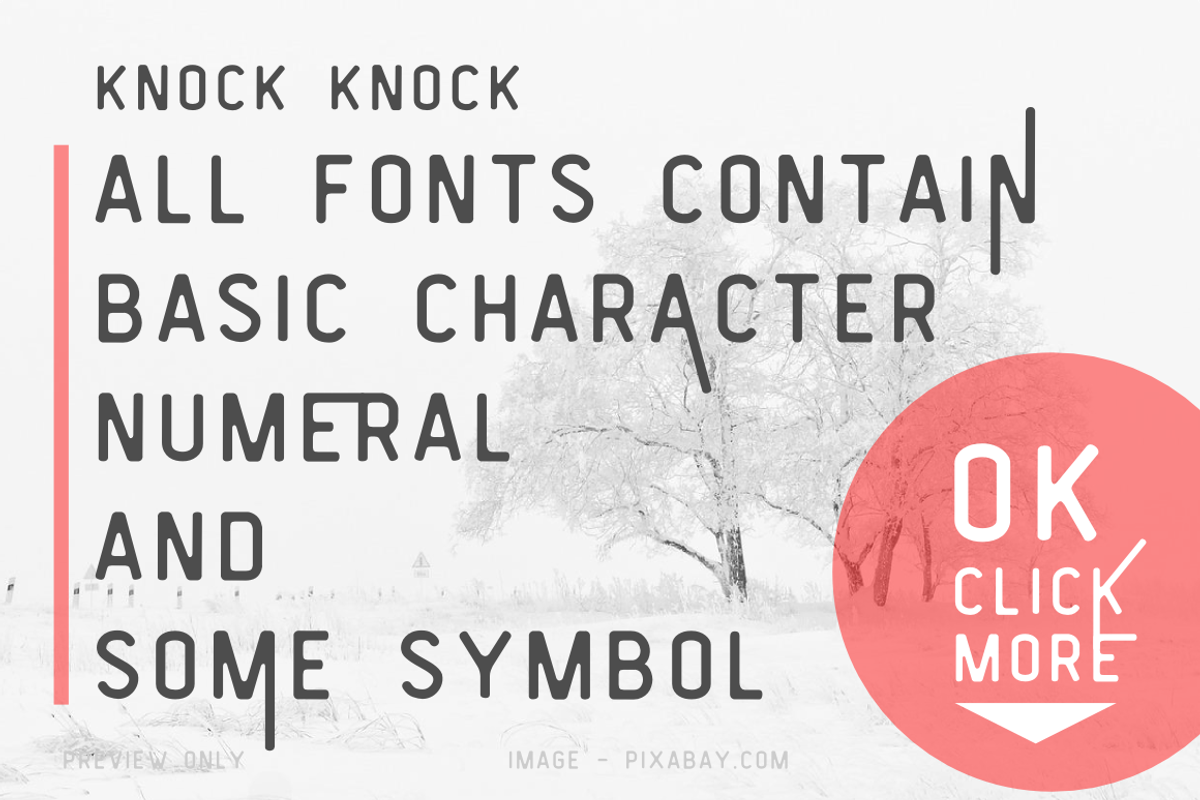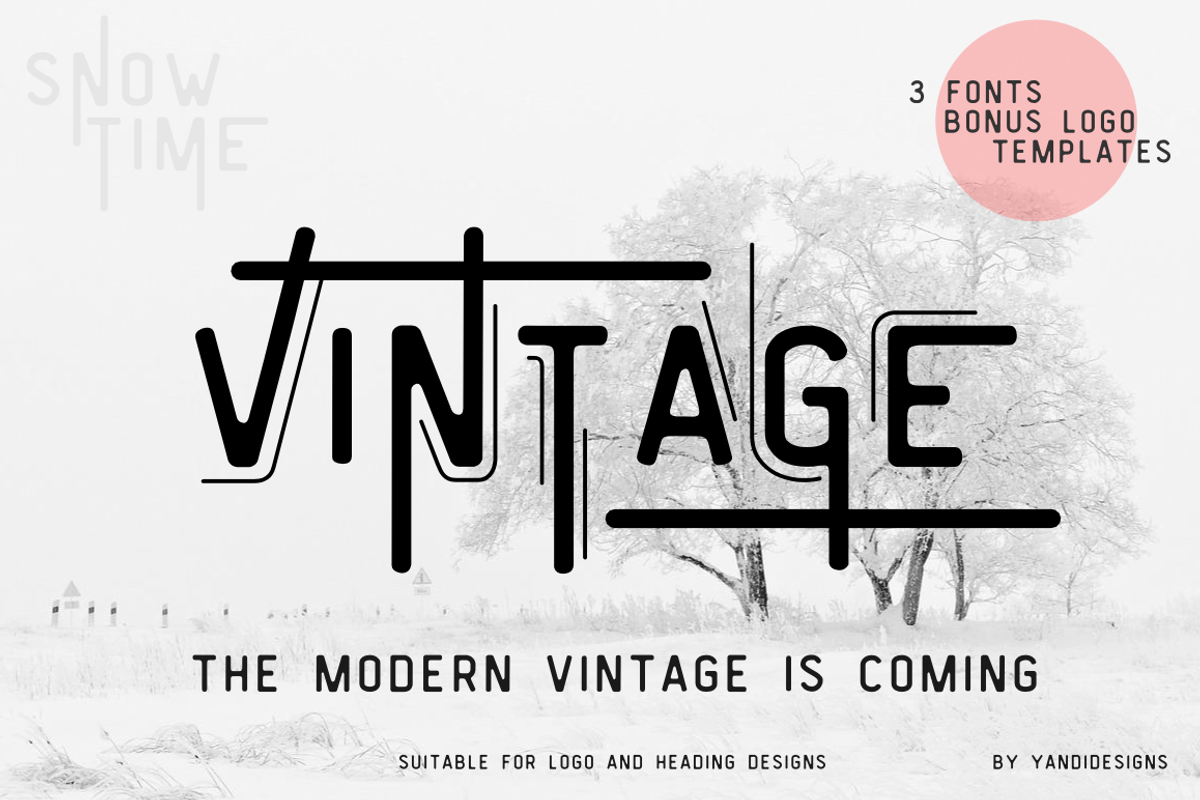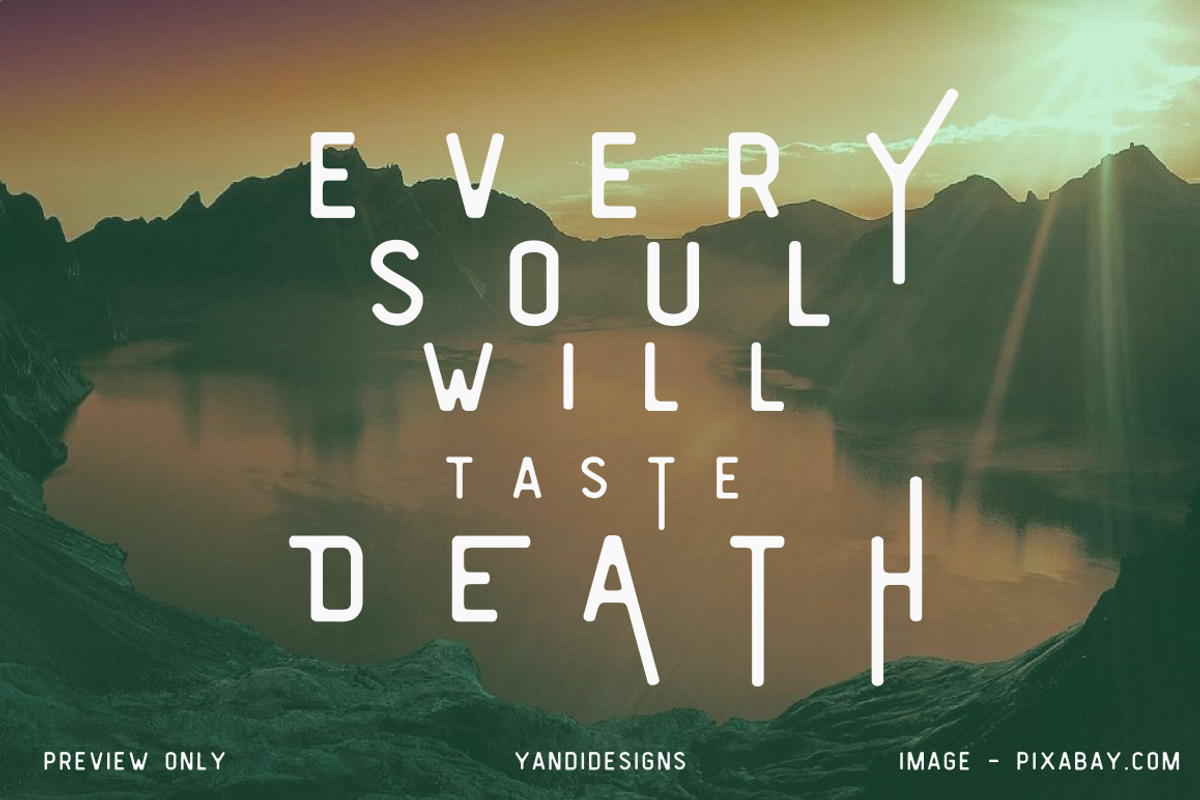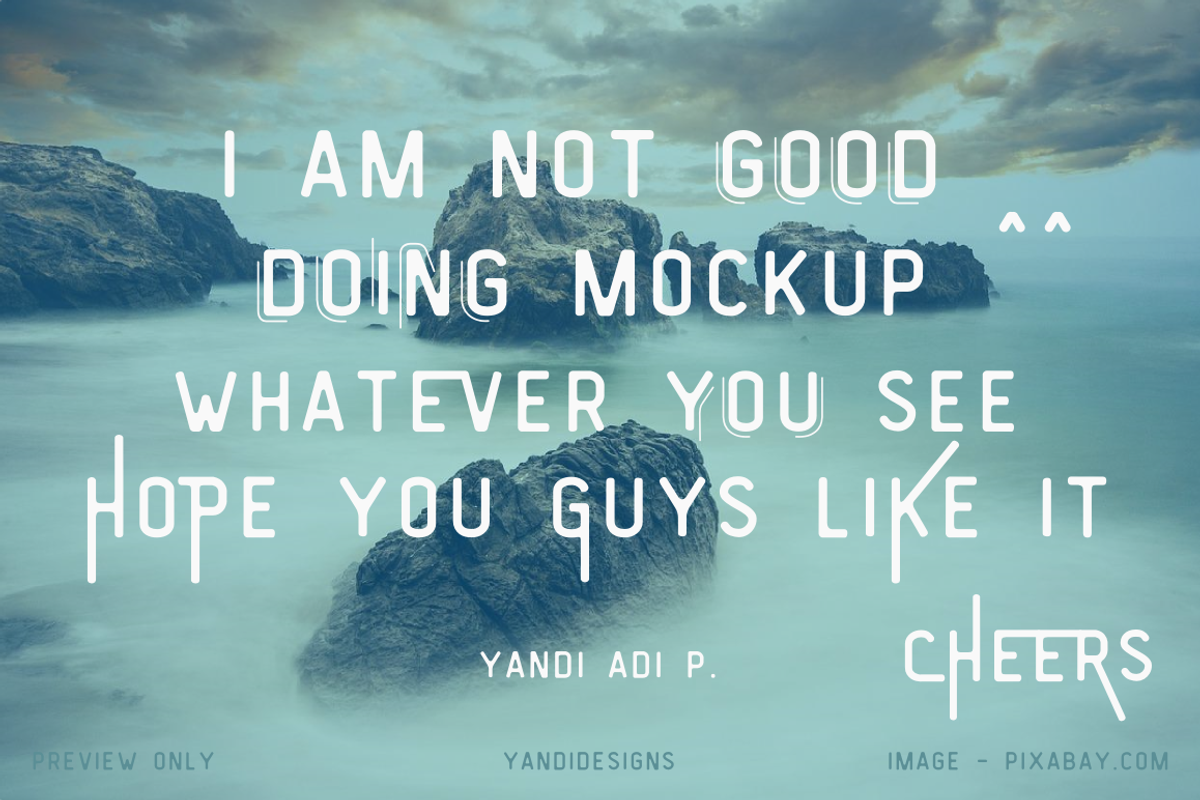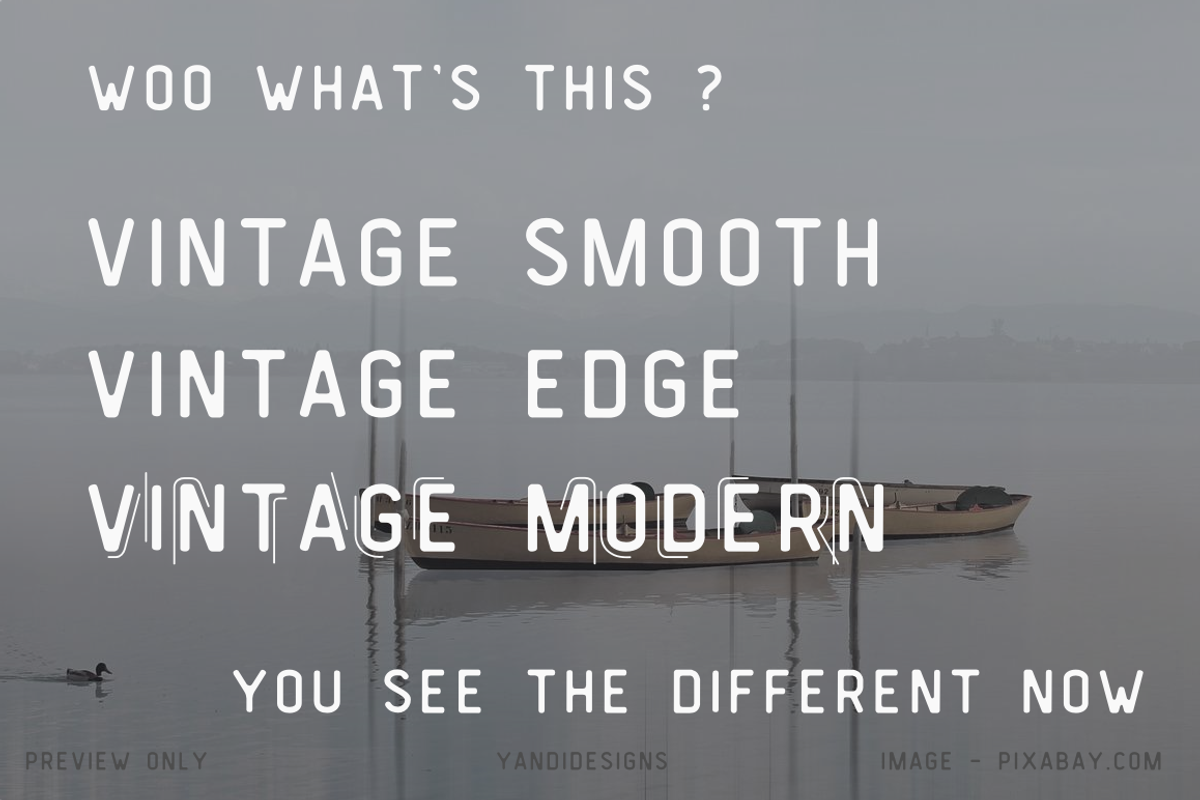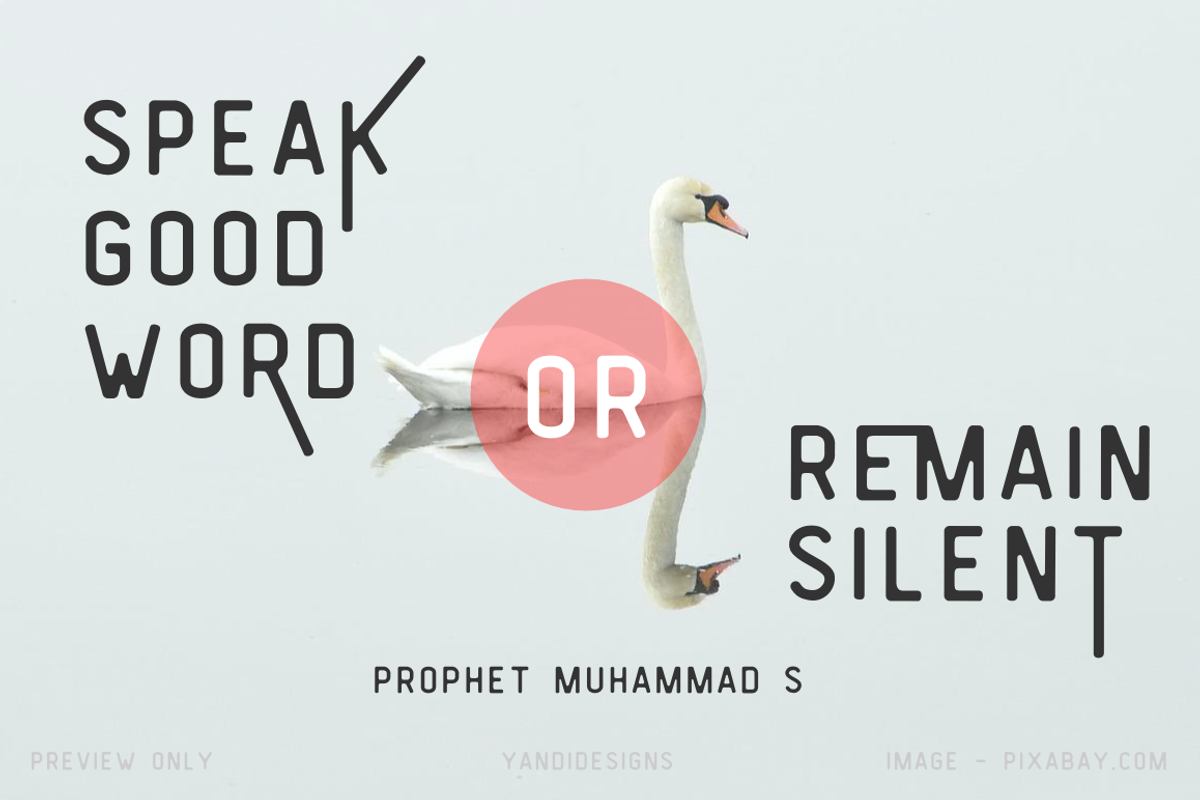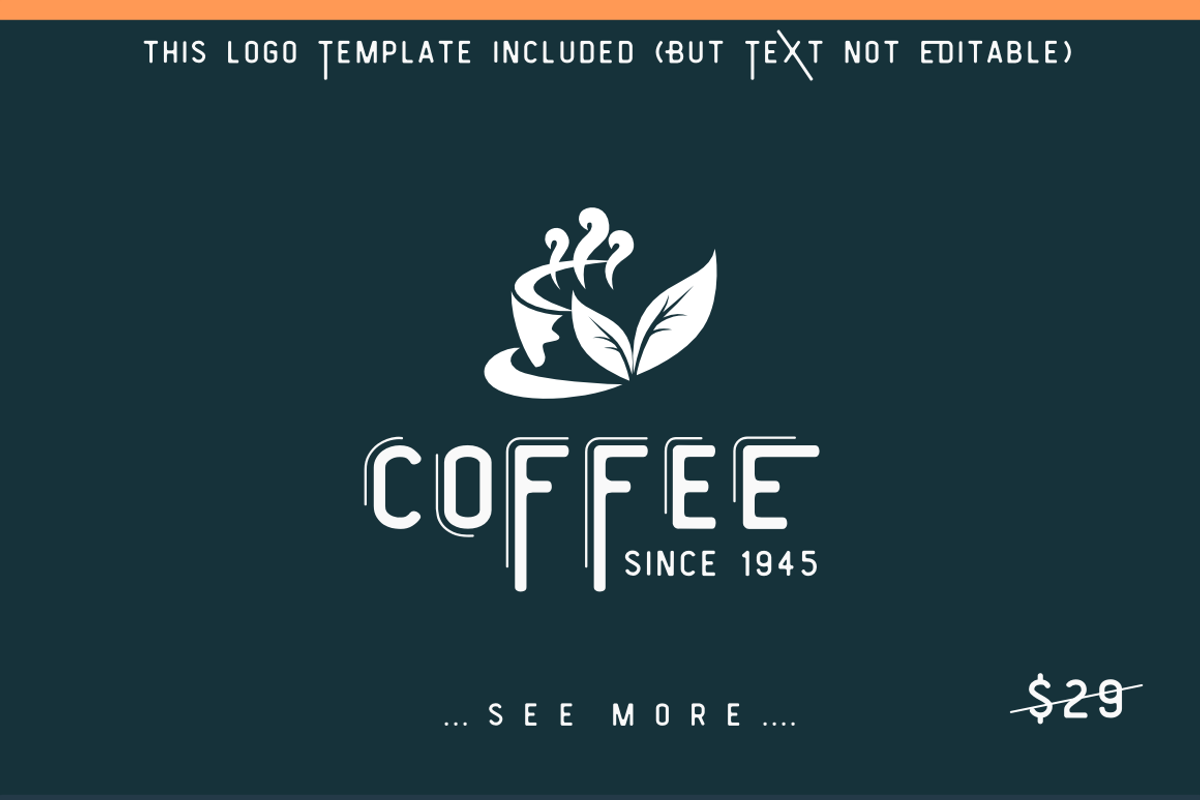
Vintage Modern Typeface
Vintage Modern Typeface by YandiDesigns is a font selected for branding, posters, packaging, typography.
Why Vintage Modern Typeface is worth a look
Vintage Modern Typeface by YandiDesigns fits naturally into Branding, posters, packaging, typography.